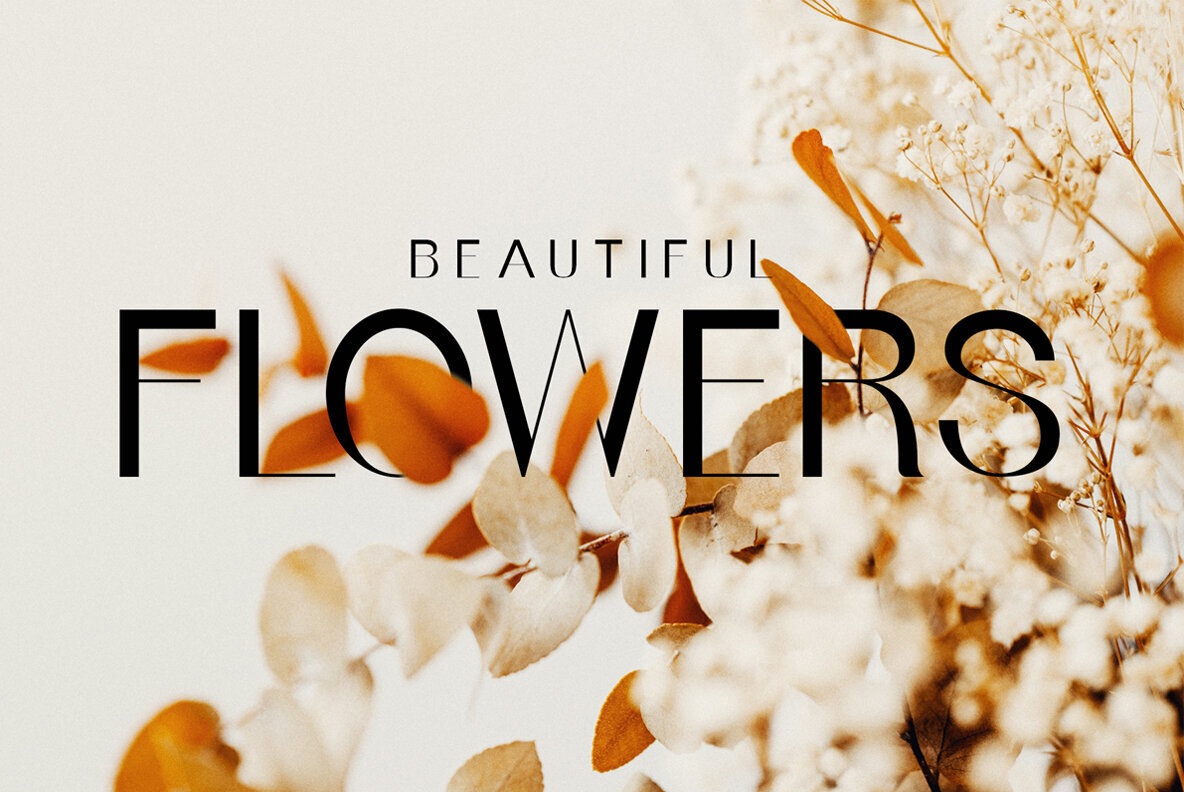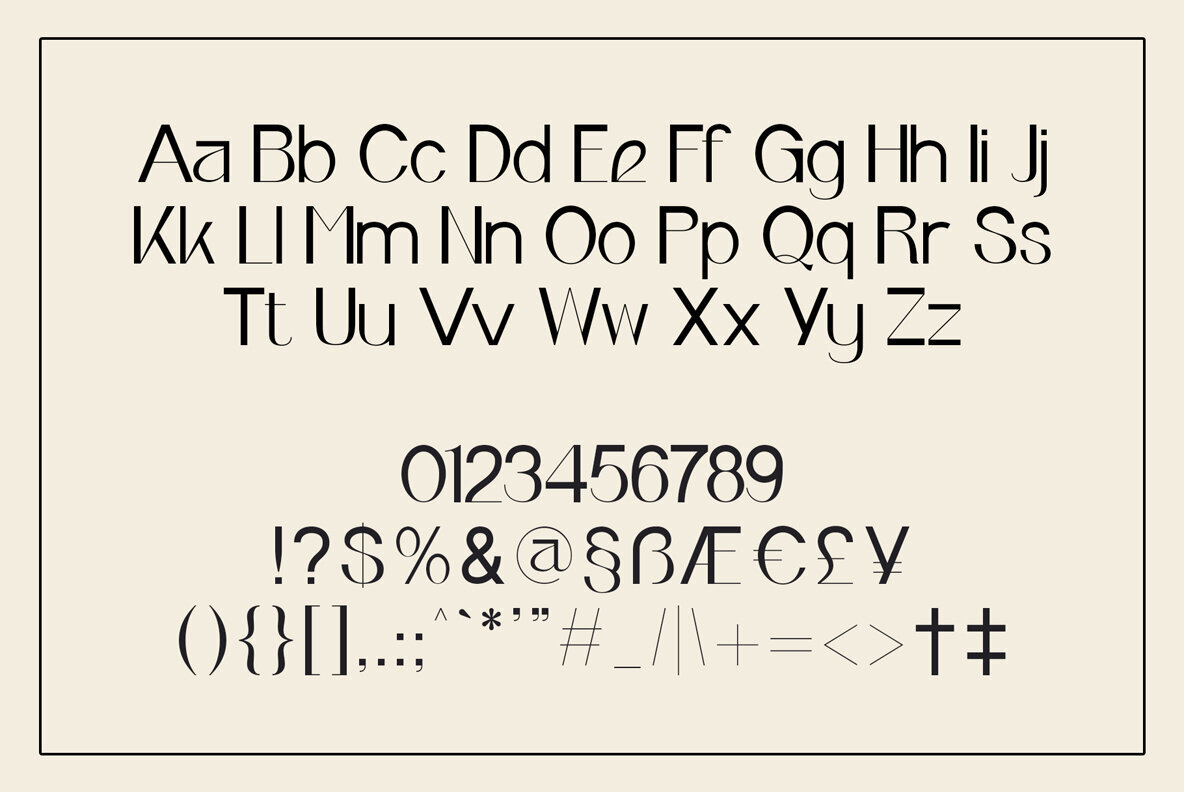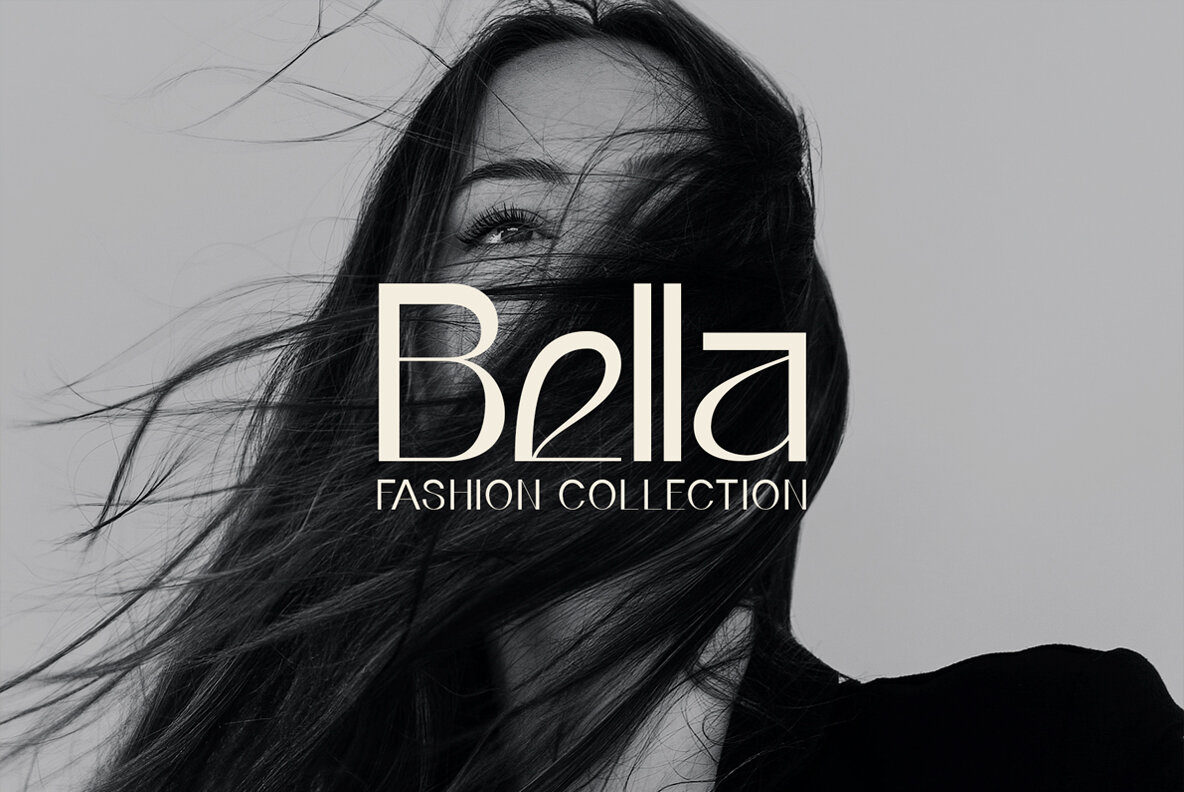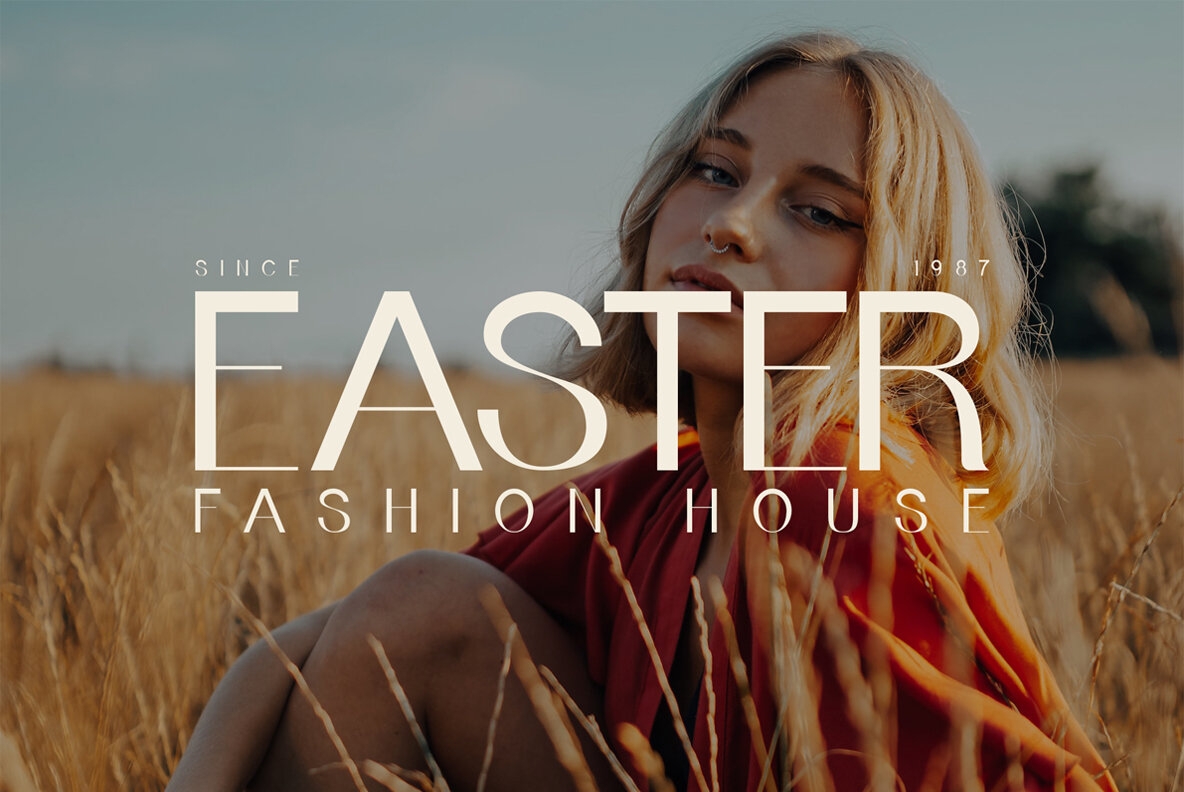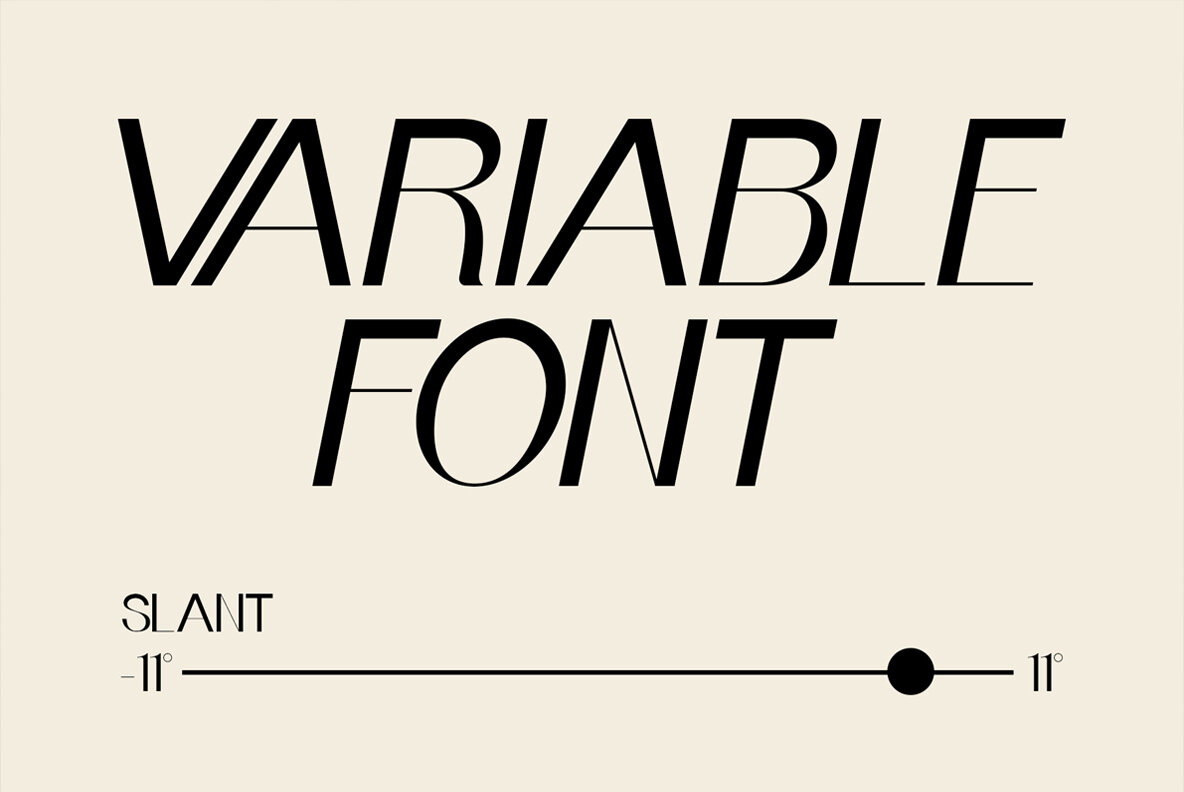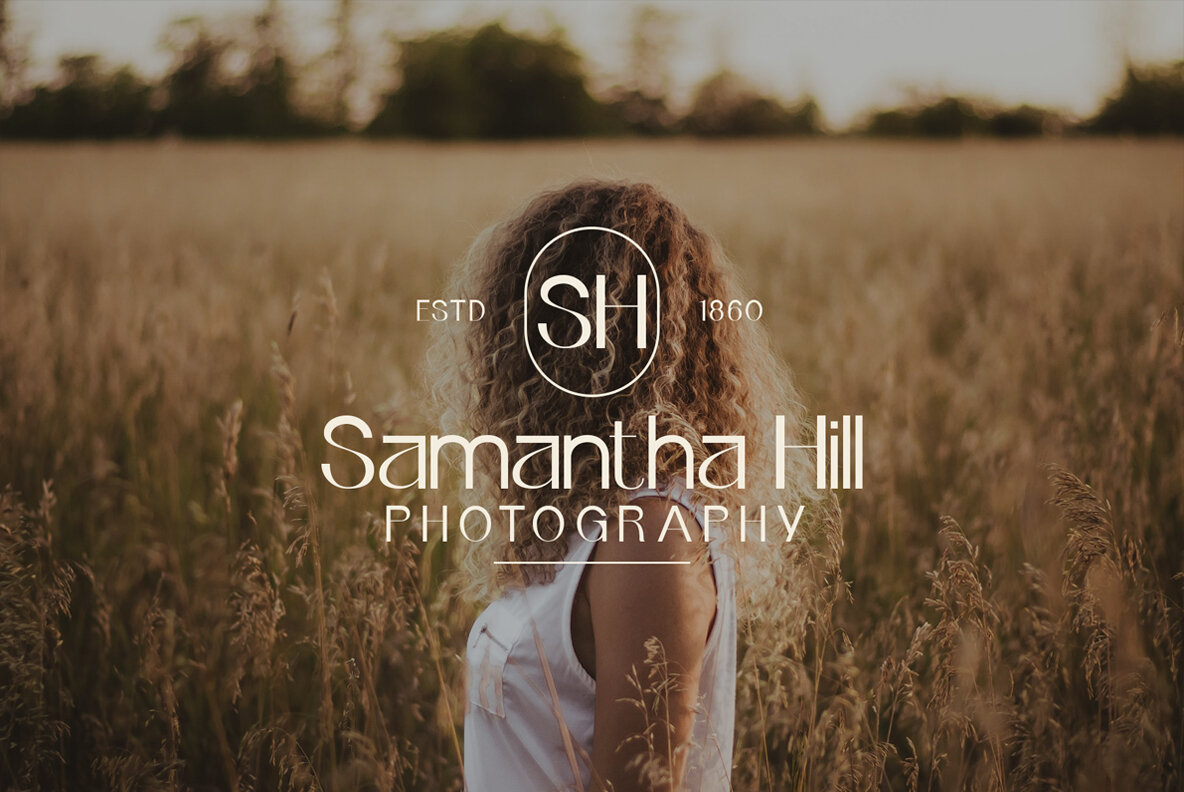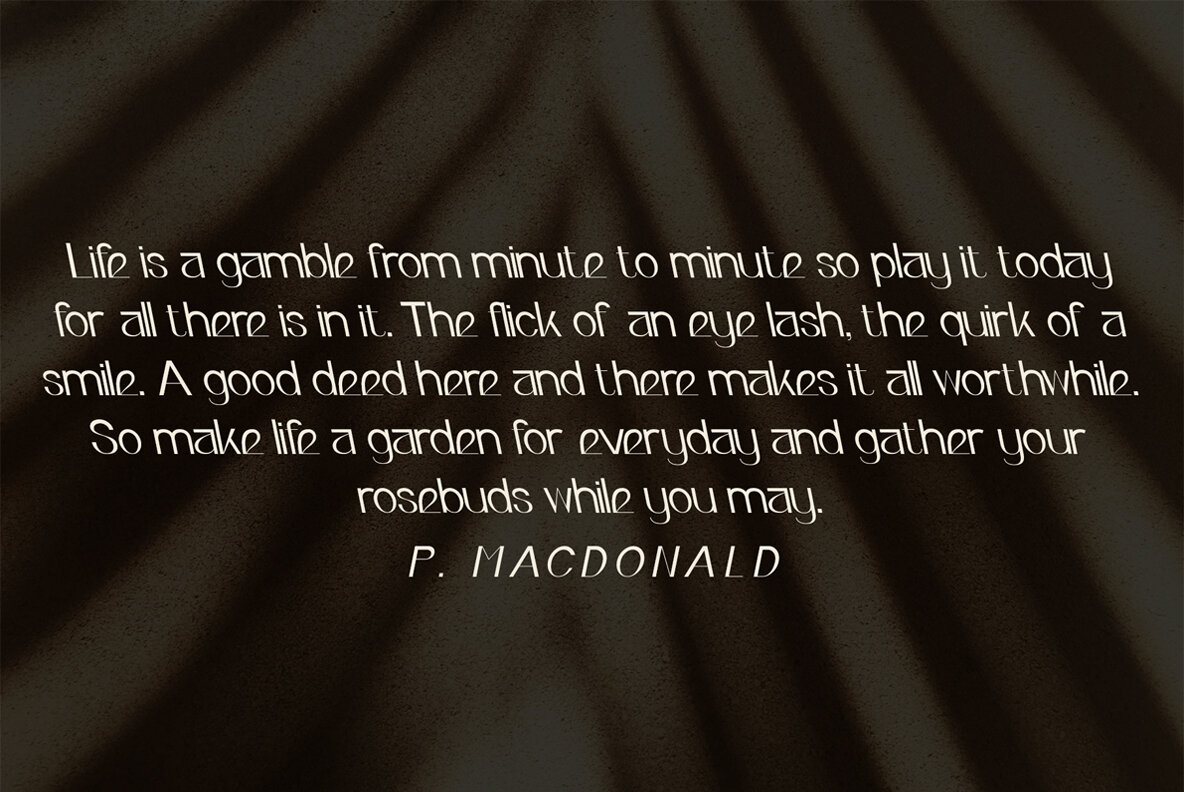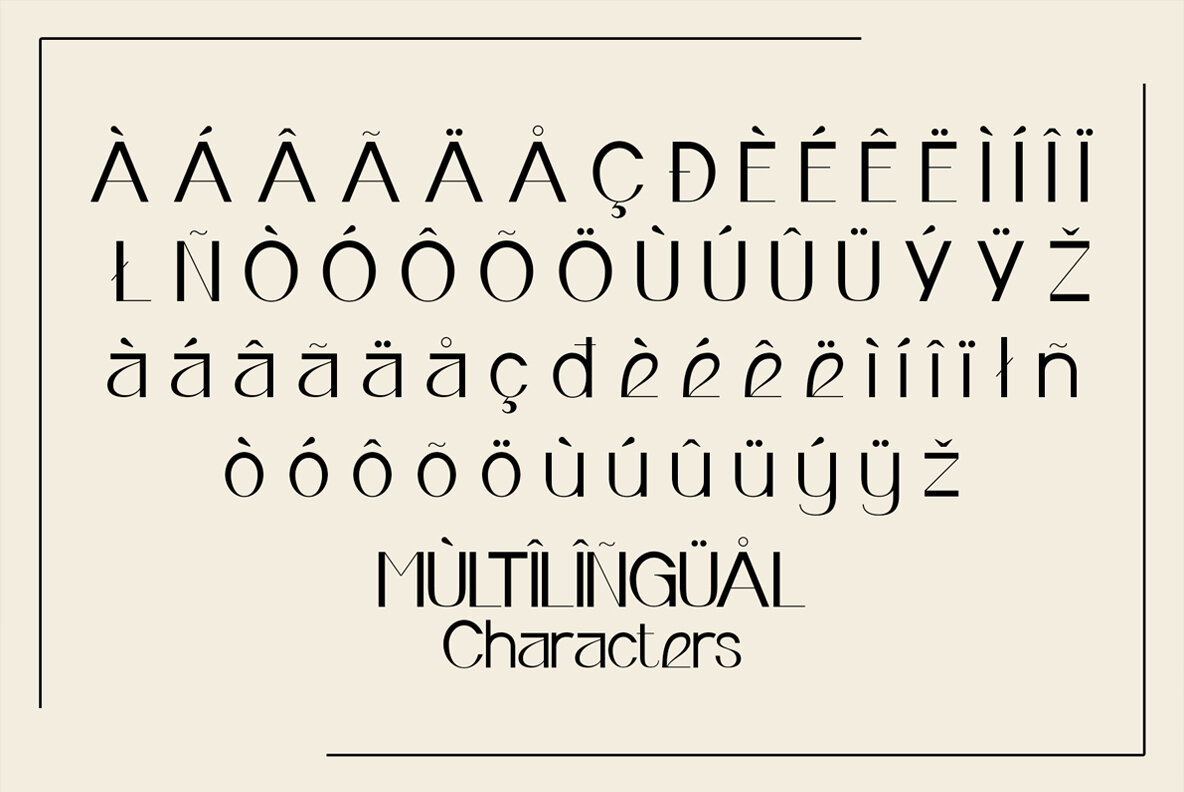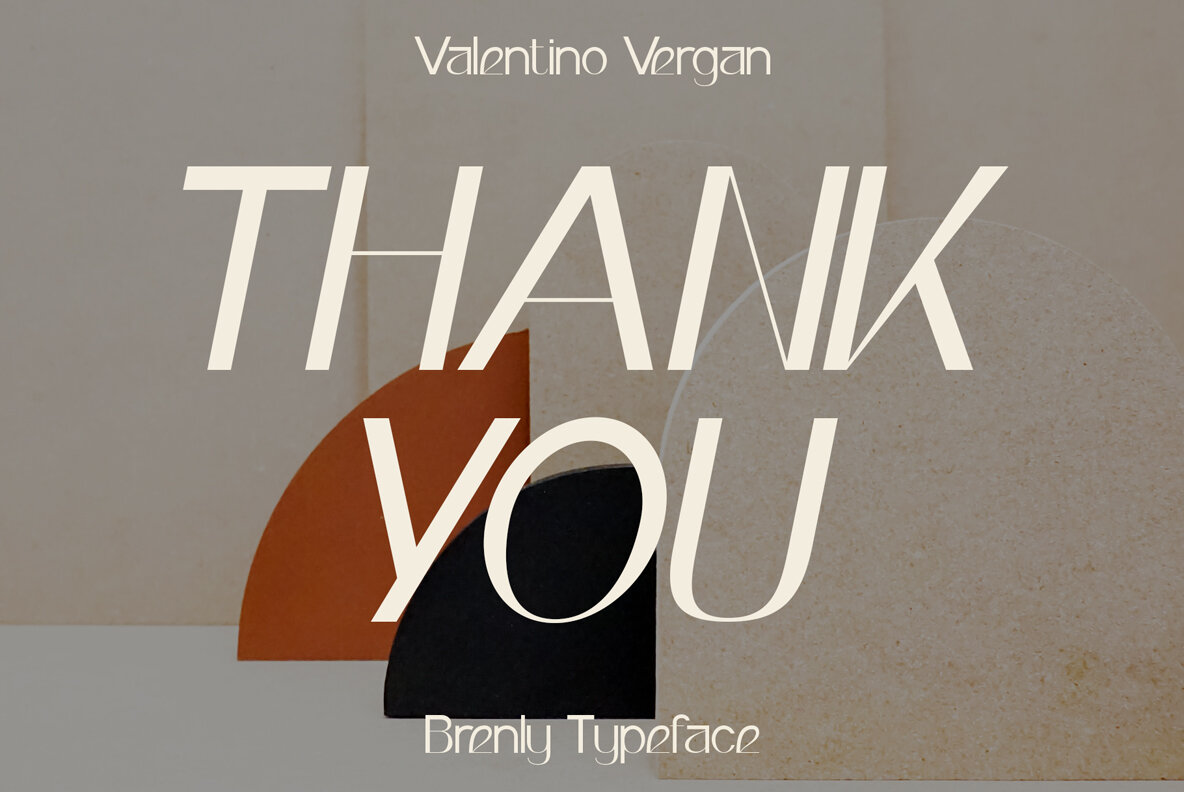
Brenly Font
Brenly is a modern variable sans serif font. Brenly has a unique and elegant look which makes it perfect for designing posters, brand packages & logos. Brenly also has a variable version, which makes it easy to manually adjust the slant from oblique to reversed oblique. If you are looking for something modern and unique for your next project, Brenly is the font for you.